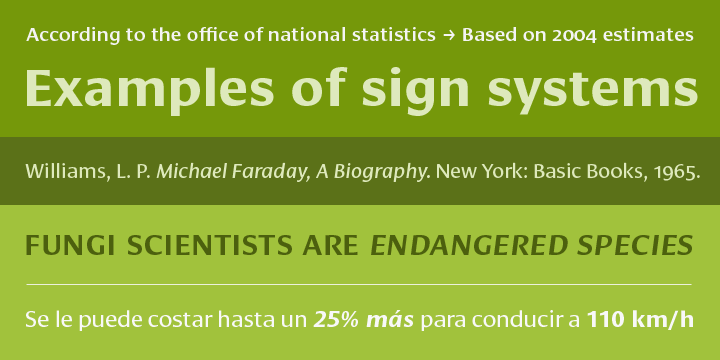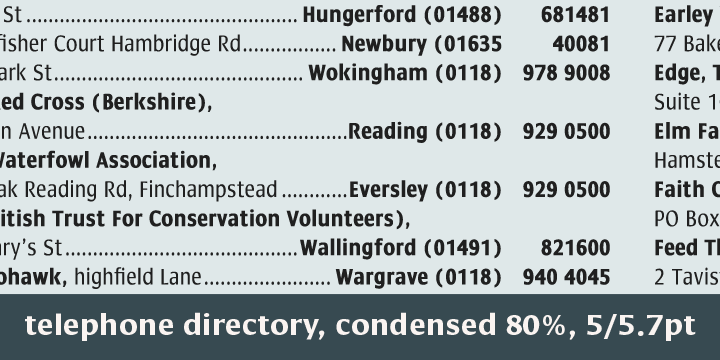
Cora Font Family
Cora is a sans serif with an experimental bent, offering a large x-height, some contrast of stroke weight, and capitals inspired by classical lettering.
The large x-height gives it a voice with a little more volume so that those in the back of the room have no trouble hearing. Because the letters seem slightly large, Cora remains clear at smaller point sizes. It is a typeface intended to perform well on screen without losing its attraction in print and the nature of its shapes allows for condensation or expansion without becoming severely distorted.